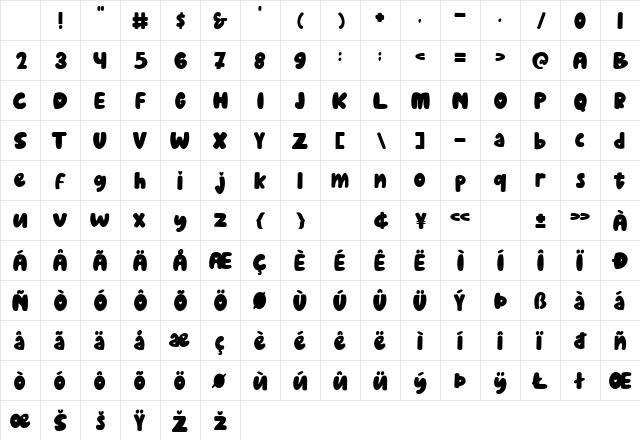
Love Mayjen Regular Free Font
Love Mayjen Regular
Designer: Wildan Suprian Syah
Design Context for Love Mayjen
Love Mayjen is a composed and adaptable typeface that performs quietly and consistently across a wide range of design contexts.